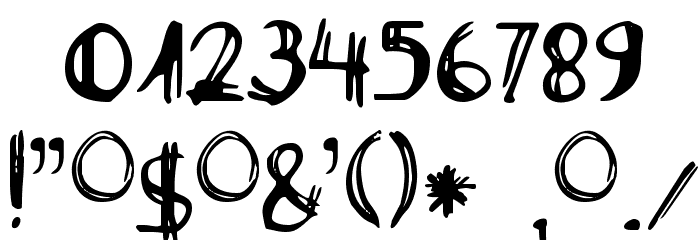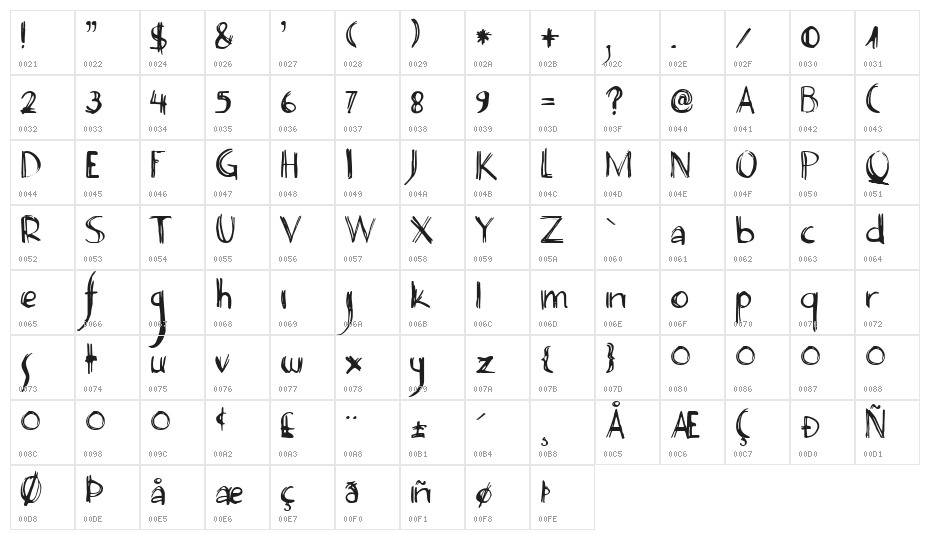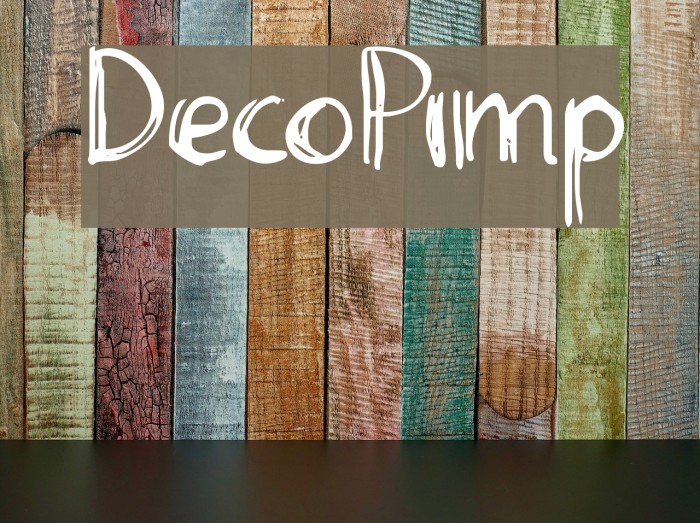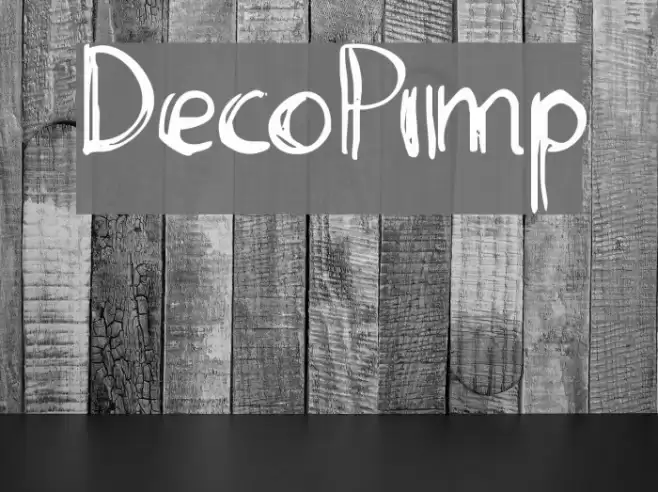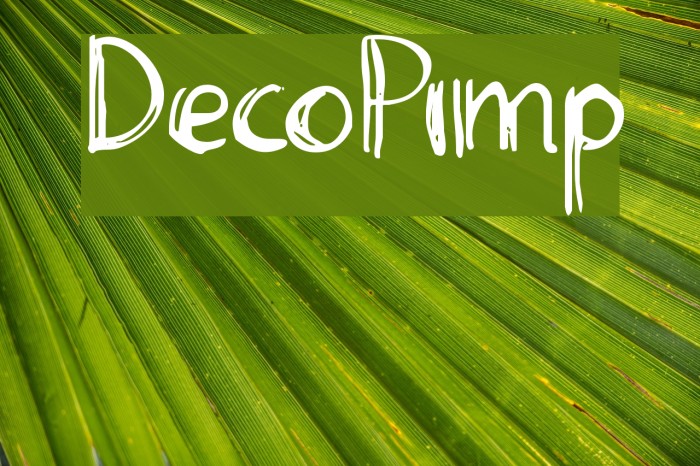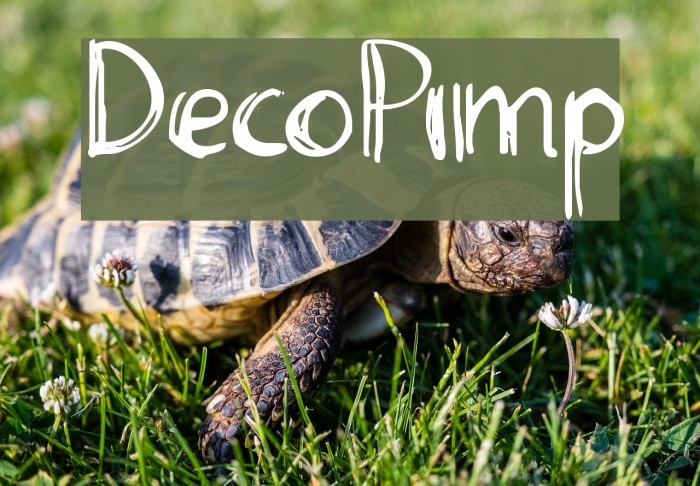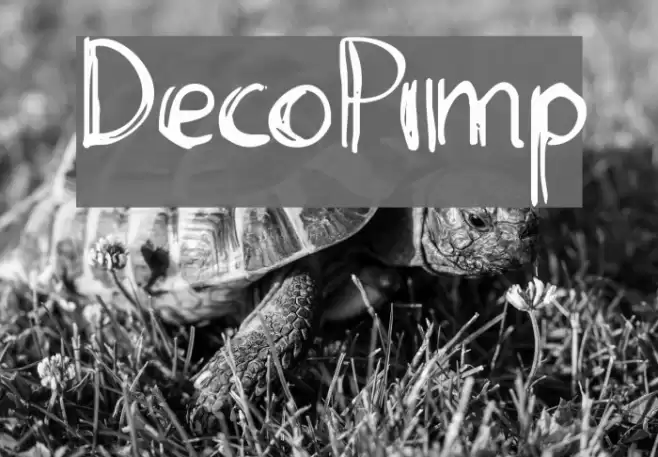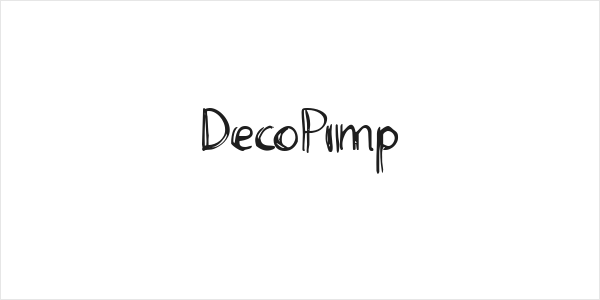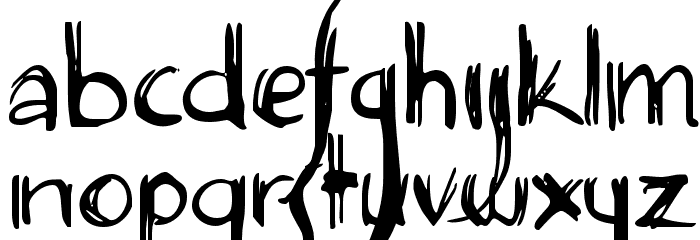
DecoPimp Font
DecoPimp Description
This font features a bold, artistic style with a hand-drawn appearance. The characters have irregular, jagged edges and varying line thicknesses, giving it a dynamic and energetic feel. The uppercase letters are tall and narrow, while the lowercase letters maintain a consistent height with unique, playful curves. Numbers and special characters follow the same artistic theme, adding to the font's overall whimsical and creative vibe. The font's distinctiveness makes it suitable for eye-catching designs.
| Proposed Projects | Ideal for posters, album covers, artistic branding, and creative event invitations. |